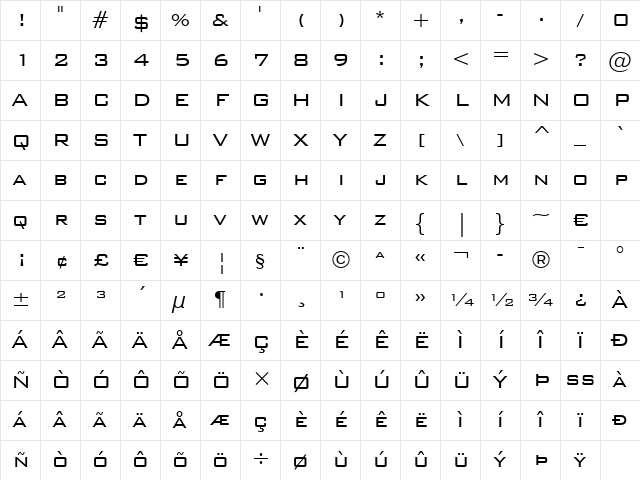
BankGothic Lt BT Light
BankGothic Lt BT Light Font Preview
Complete BankGothic Lt BT Light glyph index. Displaying only characters natively supported by BankGothic Lt BT Light font.
Design Context for BankGothic Lt BT
BankGothic Lt BT takes a clean, functional approach - its unadorned letterforms prioritise legibility and work reliably across screen and print environments. Its slender proportions lend an understated elegance to any composition.
Font Pairing: Pair BankGothic Lt BT with a medium or bold serif for headlines - the weight contrast creates an elegant, high-end feel.
Pro Tip: Use BankGothic Lt BT with generous tracking and line-height for the most luxurious effect - light sans-serifs reward spacious, considered layouts.